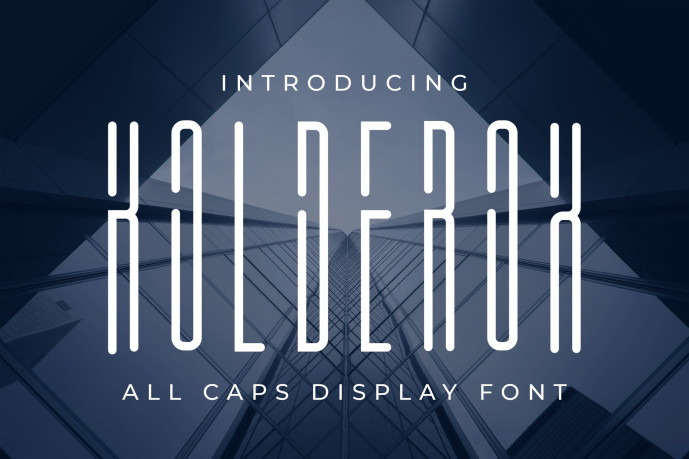
Kalderox Font
Designer: Undaru
Kalderox Font is a Modern Geometric font that created special for Branding, Title and more stand out typography needs, with extra alternative styles that make your design more memorable. It’s so perfect to add your style and headline overview for technology, actions, and minimalist theme. And specially for this font, we crafted for minimalist style and modern feels so enjoy to create any project that will show your main idea out.